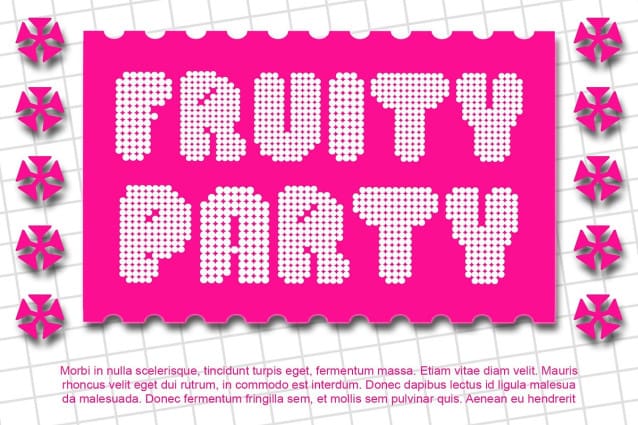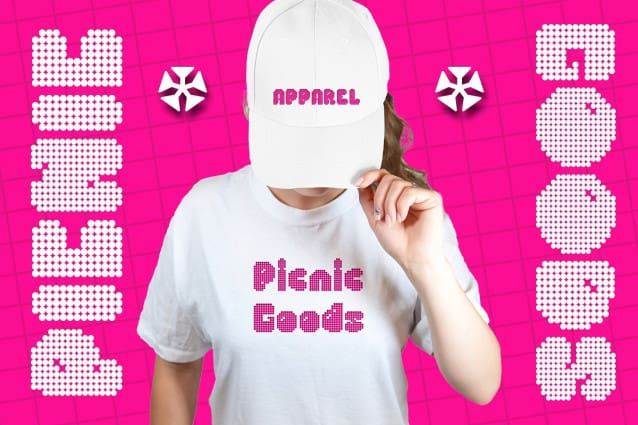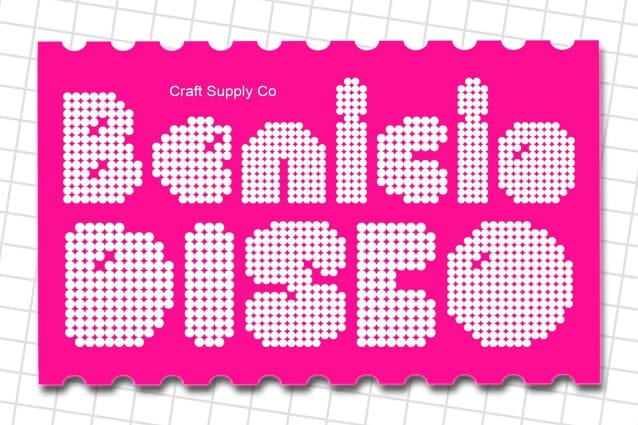
Benicio Disco Font
Benicio Disco Font: Vibrant Bubble Display Font. Captivating Bubble Design Benicio Disco features a mesmerizing bubble-shaped design that exudes energy and fun. Its unique dot-style detailing adds a touch of disco-inspired flair to any project.
Disco-Inspired Nuance Drawing inspiration from the vibrant disco era, This font infuses a sense of groove and excitement into your designs. Its playful aesthetic captures the essence of disco culture in every character.
Perfect for Display Projects Tailored specifically for display purposes, This font shines in various contexts, from event posters to digital advertisements. Its eye-catching bubble format ensures maximum visibility and impact.
Versatile Application Beyond its disco-themed appeal, This font offers versatility in application. Whether used for branding, packaging, or social media graphics, its lively and dynamic style adds a touch of excitement to any design.
Bringing Disco Vibes to Design This font stands out as a vibrant and dynamic display font, infusing disco vibes into every project. With its bubble-shaped design and dot-style elements, it adds an element of fun and excitement, making it the perfect choice for those seeking to inject energy into their designs.